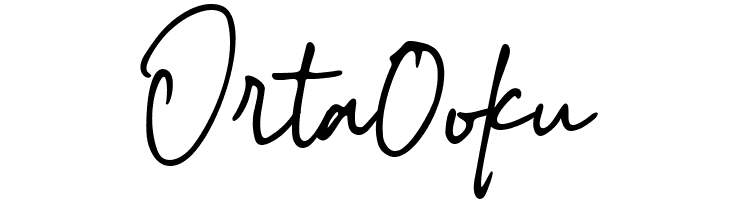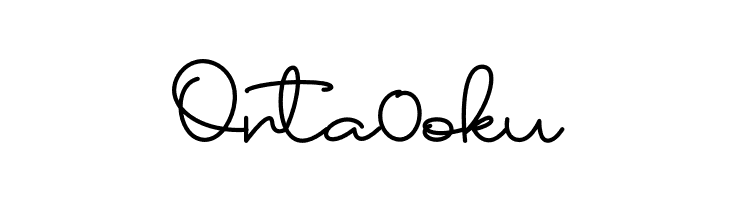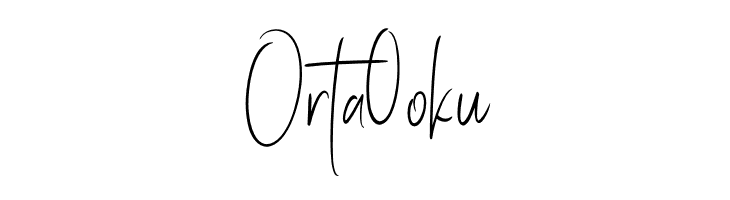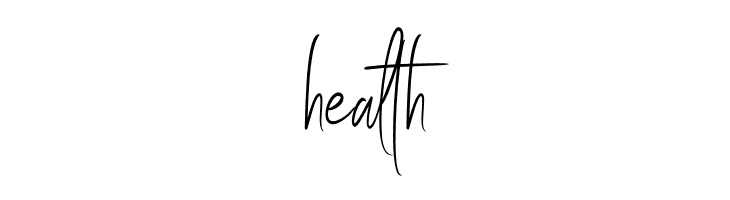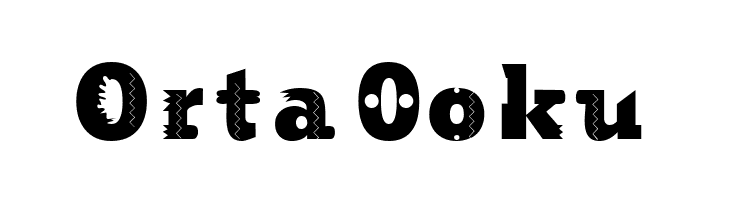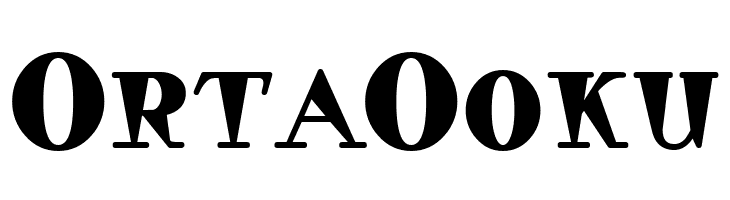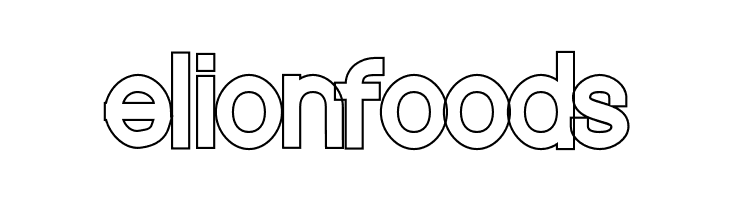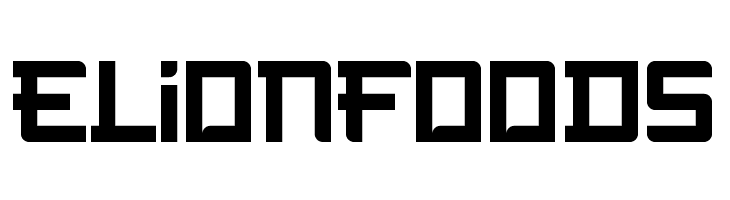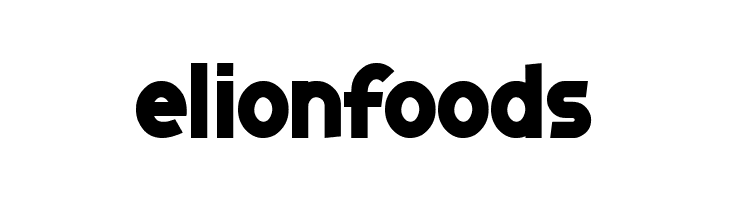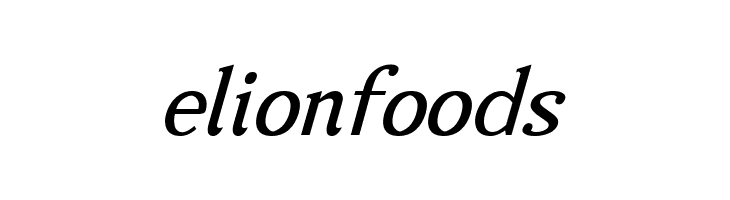
A sophisticated cursive script with elegant loops and flowing connections.
A stylish, handwritten font with elongated, flowing letterforms.
A stylish, handwritten font with elongated, flowing lines and a sophisticated appearance.
A bold, decorative font with intricate patterns and cut-out shapes.
A bold, high-contrast serif font with dramatic and elegant features.
A stylish and classy script font with elegant, fluid strokes.
A bold, impactful font with thick strokes and a modern, professional appearance.
A bold, italic typeface with a modern, dynamic style and tight character spacing.
A sleek, modern font with clean lines and a minimalist aesthetic.
A sleek, modern, extra light italic font with a clean and minimalistic design.